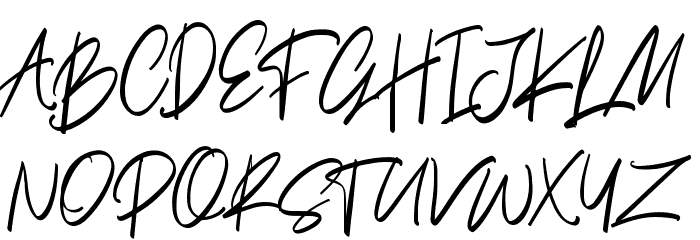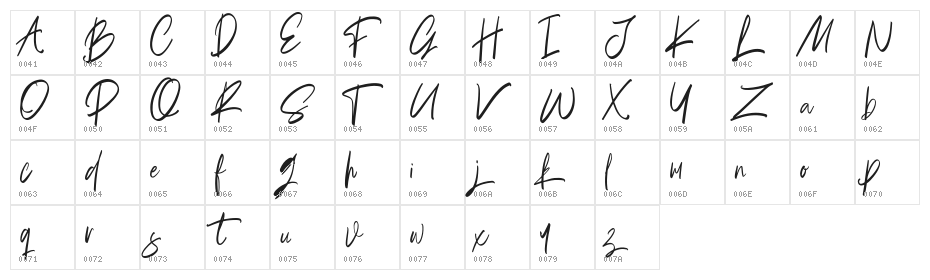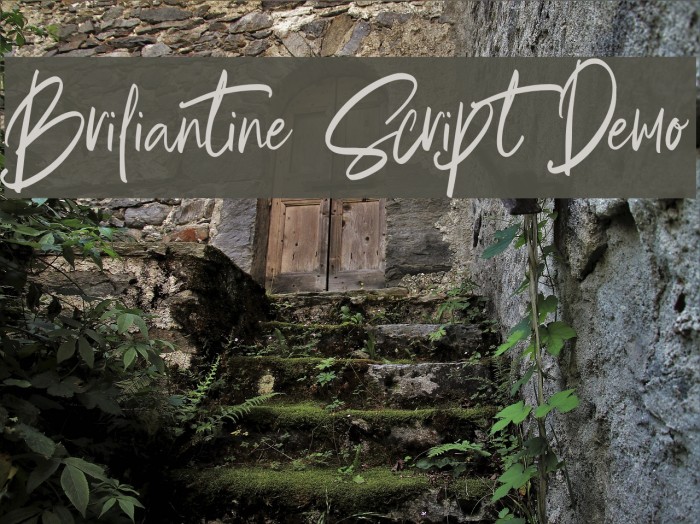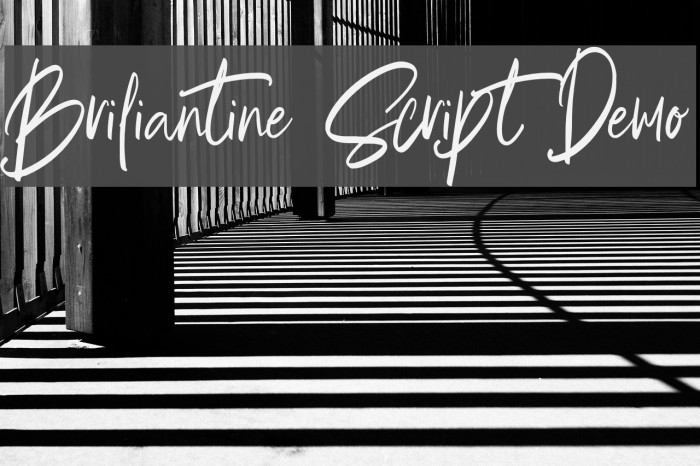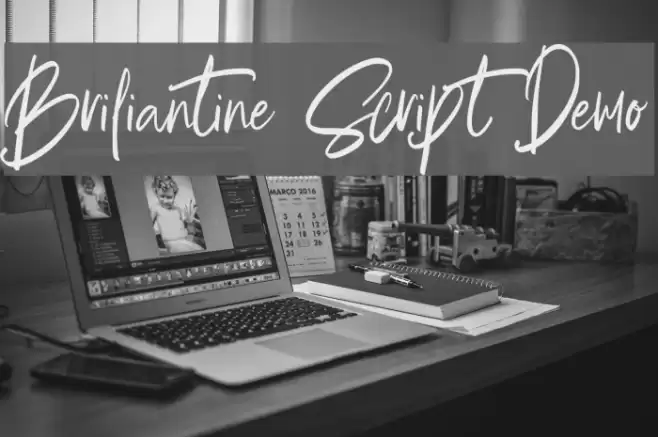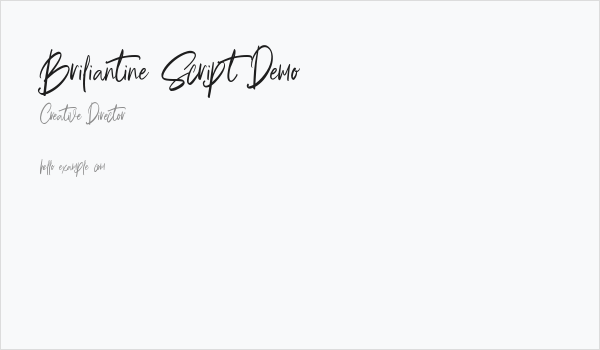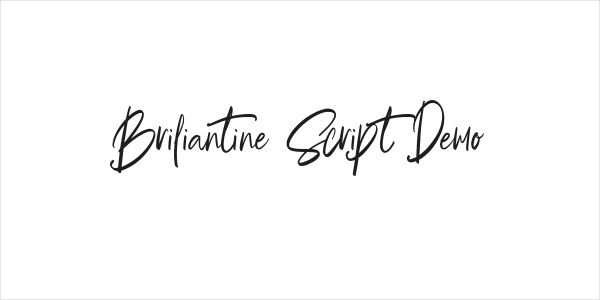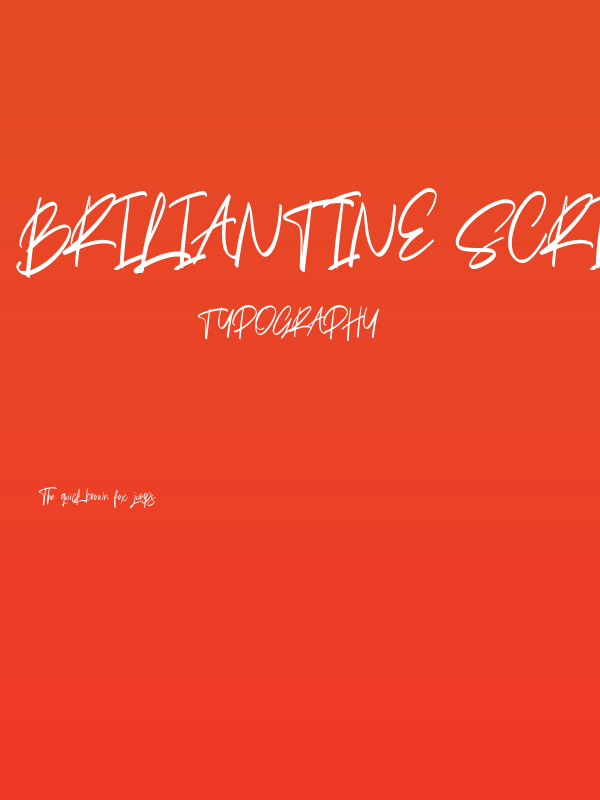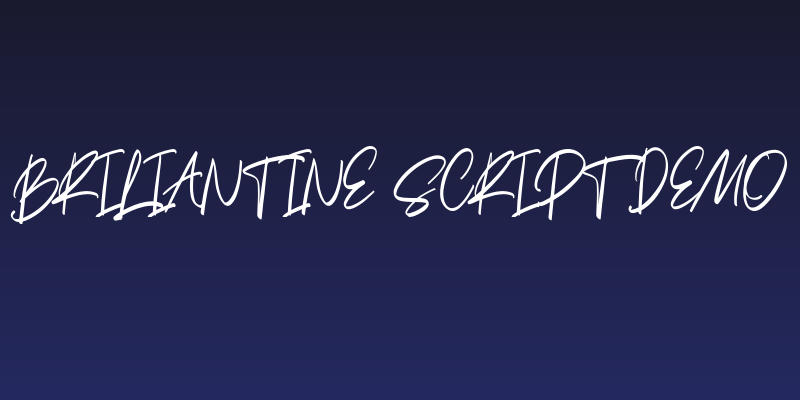
Briliantine Script Demo Font
Briliantine Script Demo Description
This font exudes a lively and dynamic energy, characterized by its fluid, cursive script style. The letters are interconnected with smooth, sweeping strokes that give it a handwritten appearance. The uppercase letters are tall and elegant, while the lowercase letters maintain a consistent flow, enhancing the overall script aesthetic. The font's playful yet sophisticated nature makes it suitable for creative and expressive design projects. Its unique style is perfect for adding a personal touch to any text, making it stand out with its artistic flair.
| Proposed Projects | Ideal for wedding invitations, greeting cards, logos, and branding materials that require a personal, artistic touch. |